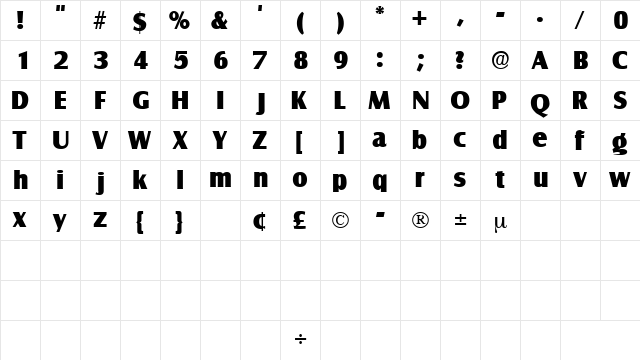
NautoDisplaySSK Regular
Design Context for NautoDisplaySSK Typeface
NautoDisplaySSK brings ornamental detail and strong personality to headlines and identities, where visual impact matters more than quiet functionality.
Font Pairing: Pair with a clean neutral sans-serif for body copy to let NautoDisplaySSK's character lead without overwhelming the composition.
Pro Tip: Treat NautoDisplaySSK as the centrepiece of your typographic hierarchy. One strong heading set in a decorative face can carry an entire layout.